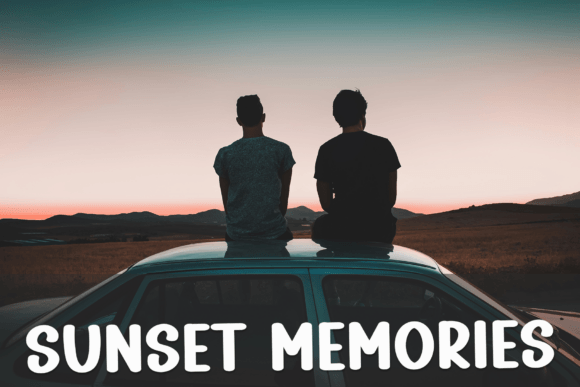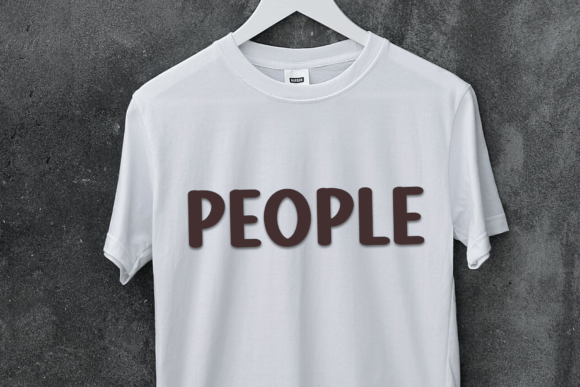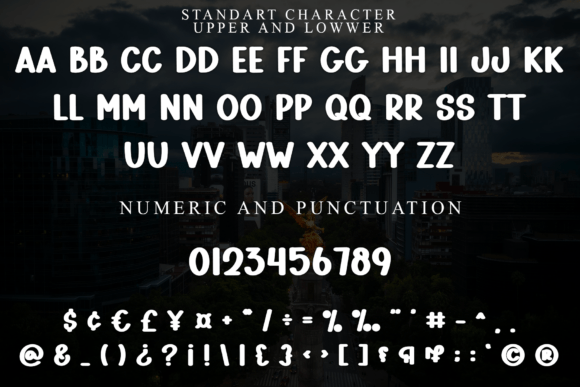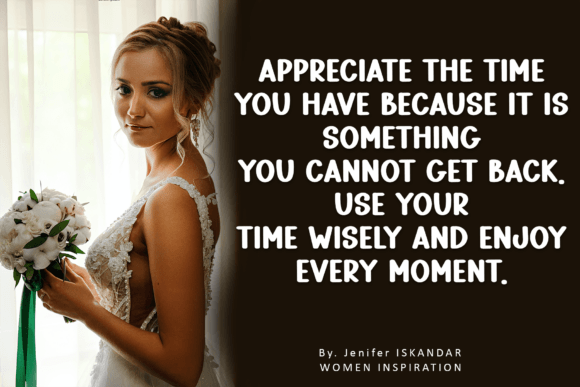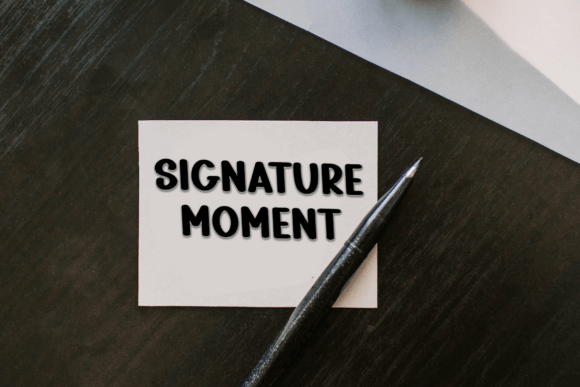
Introduction to Little Squad Font Font
Fonts play a crucial role in design, and the Little Squad Font font is a typeface that brings both character and versatility to any project. Whether you’re working on a branding project, a website, or a print design, the Little Squad Font font offers a unique style that can elevate your work.
Little Squad is a fun and bold display font.
It has thick letters that are easy to read, making it great for headlines and posters The playful style adds a cheerful touch, perfect for kids’ projects, games, and colorful designs.
Key Features of Little Squad Font Font
Why Choose Little Squad Font Font?
The Little Squad Font font is more than just a typeface – it’s a design tool that helps you communicate your message with style and clarity. Its unique character set and versatile design make it suitable for a wide range of applications, from elegant invitations to bold headlines.
With its carefully crafted letterforms and balanced proportions, the Little Squad Font font ensures readability and visual appeal across all mediums.
What makes Little Squad Font font special?
The Little Squad Font font stands out with its unique design, exceptional readability, and versatility across various design applications.